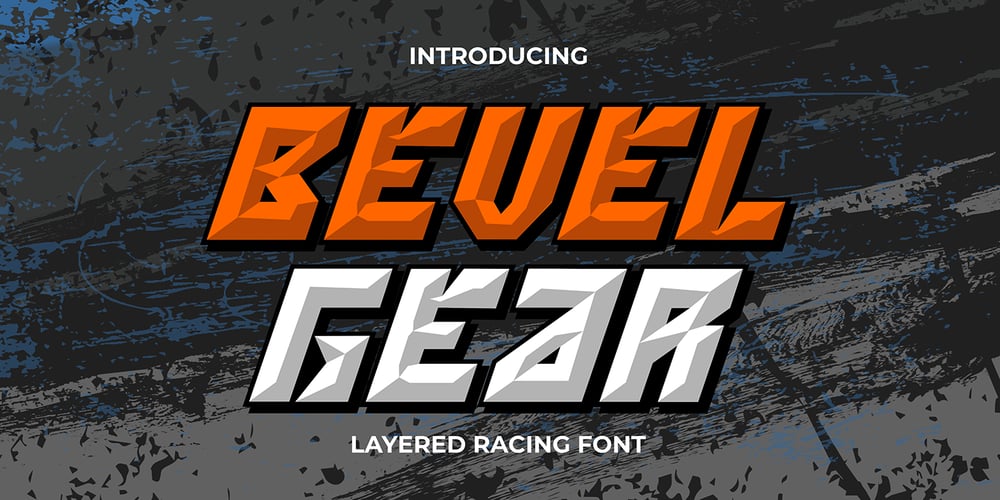
Bevel Gear Font Family was designed by Sipanji and published by Sipanji21. Bevel Gear contains 3 styles and family package options. “Bevel Gear” is a racing display font with multiple layers that can be used to create a three-dimensional (3D) effect in your text. Fonts like this are often used in racing-related design projects, including logos, posters, and advertisements for racing events or automotive-related content.By utilizing the multiple layers available in “Bevel Gear,” you can give your text a three-dimensional appearance that adds depth and dimension to your design. This font allows you to create text that looks dynamic and is well-suited for designs in the world of motorsports and racing.